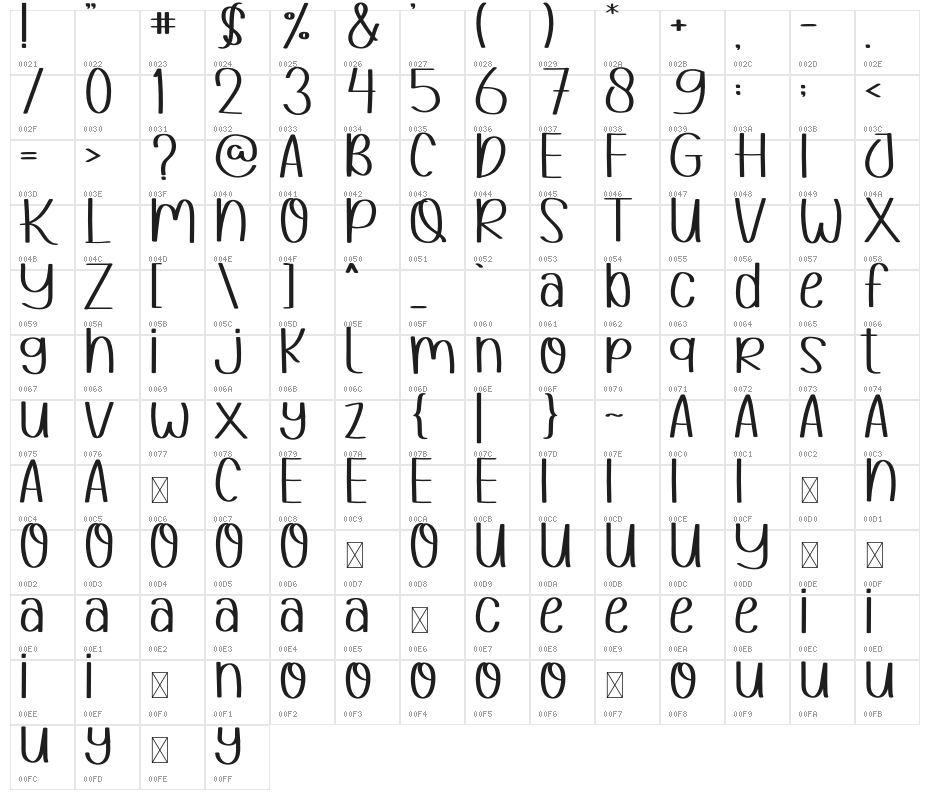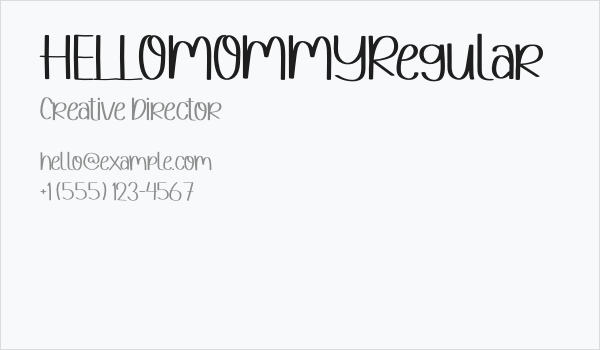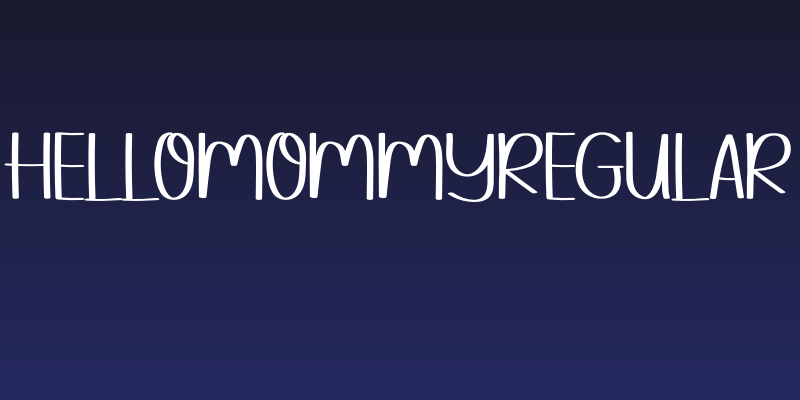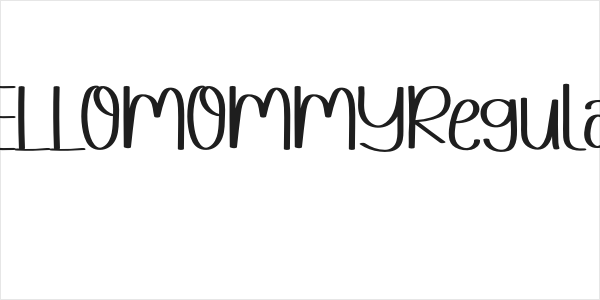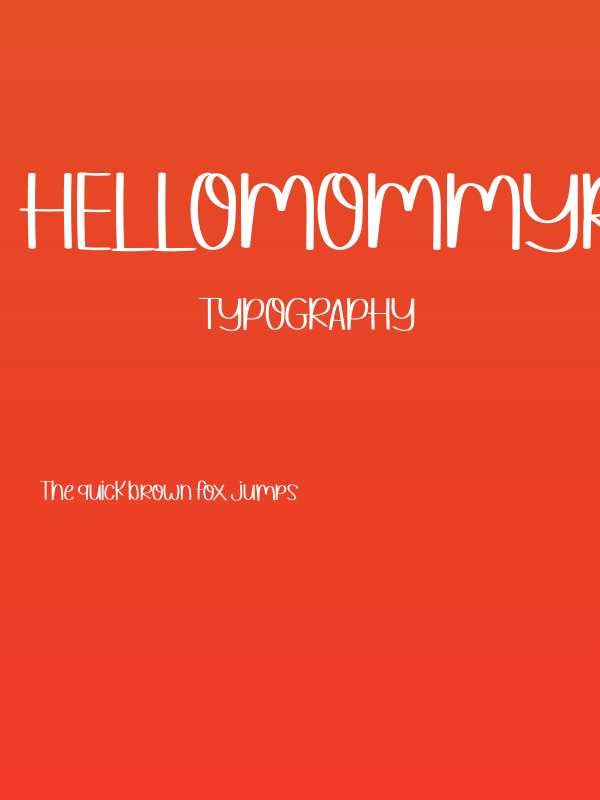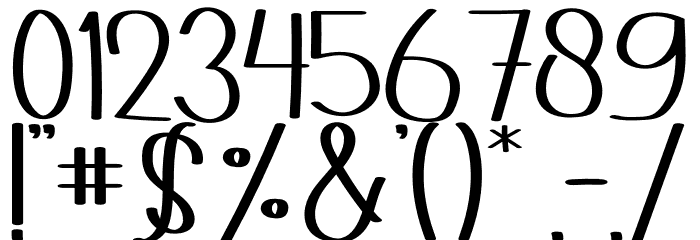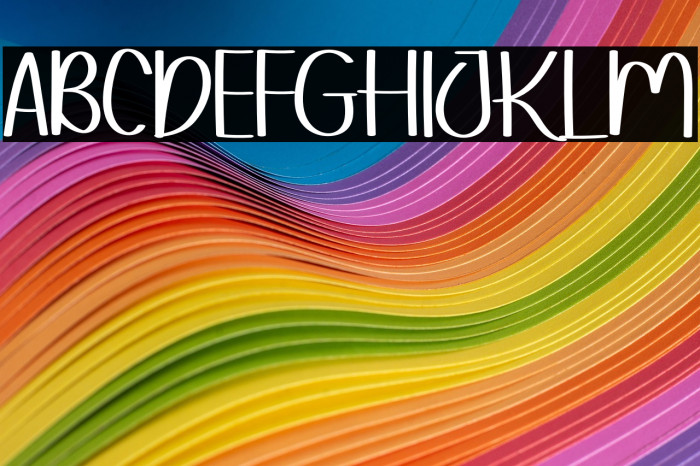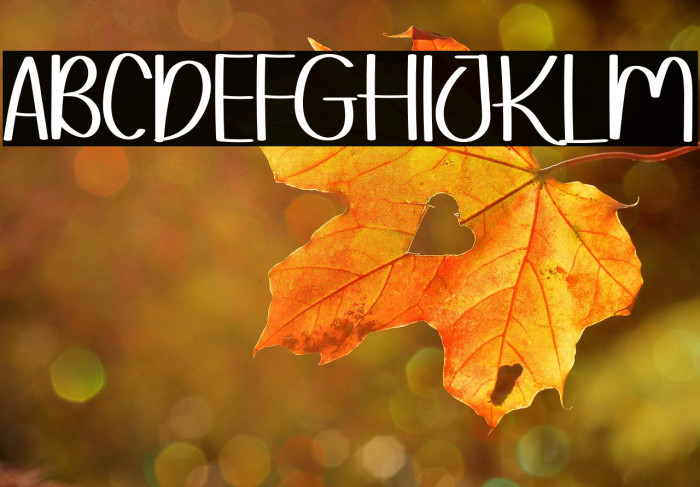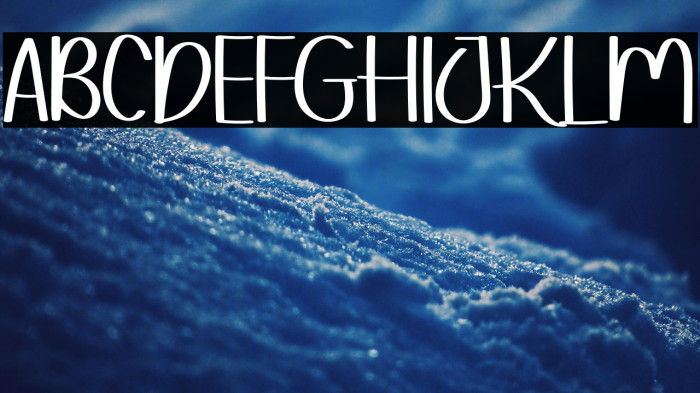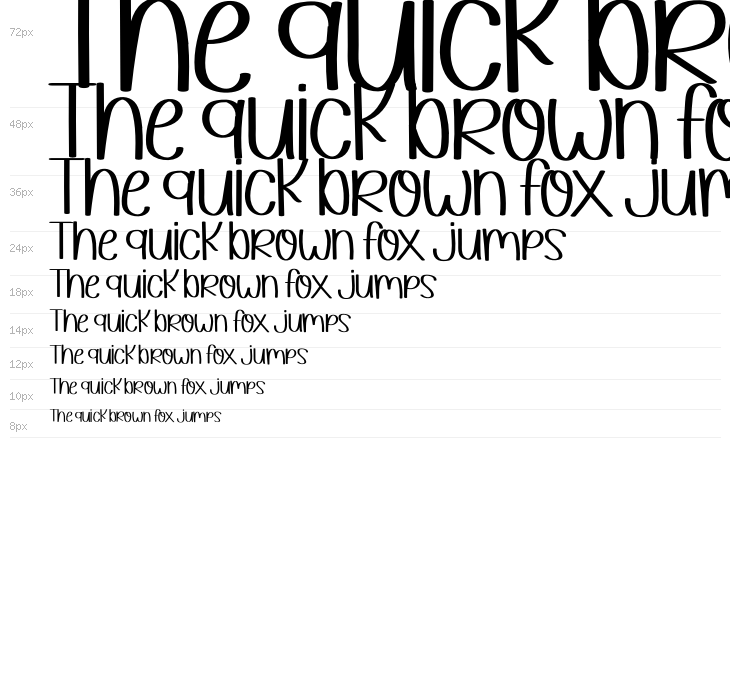
HELLOMOMMYRegular Font
HELLOMOMMYRegular Description
This font features a playful and casual handwritten style, characterized by its tall, narrow letters with a slight slant. The strokes are consistent in width, giving it a uniform appearance, while the rounded edges add a friendly and approachable feel. The uppercase and lowercase letters maintain a cohesive look, with the lowercase letters slightly shorter and more rounded. Numbers and special characters are designed to match the overall style, ensuring a harmonious look across all text. This font is ideal for projects that require a personal touch or a relaxed vibe.
| Use Case | Headlines, Informal text, Branding |
| Proposed Projects | Greeting cards, children's books, casual branding, social media graphics. |